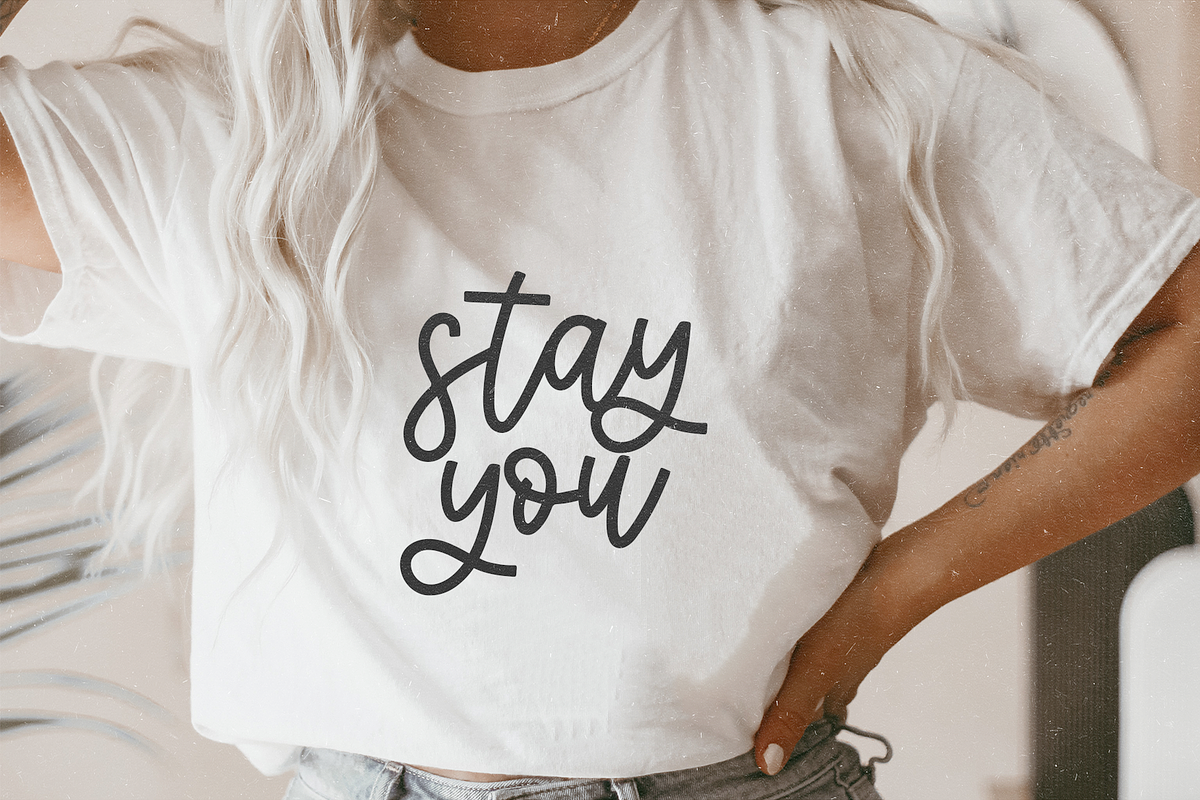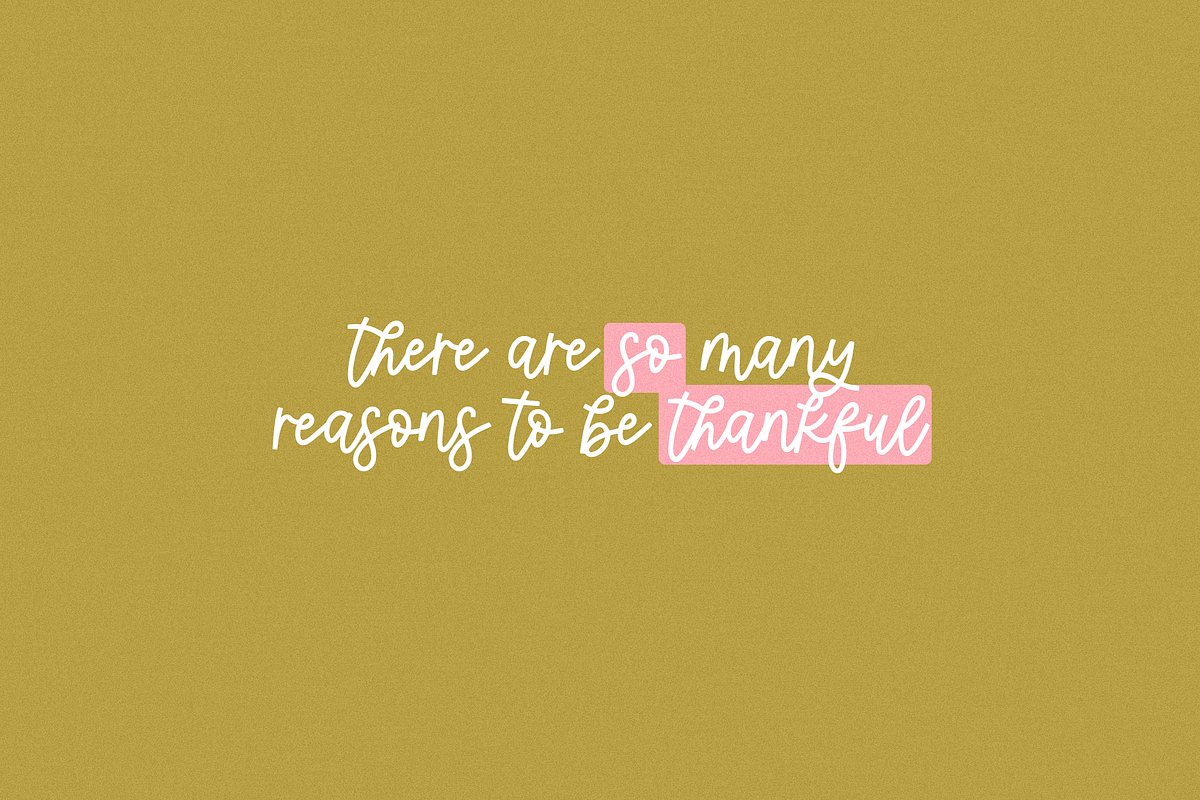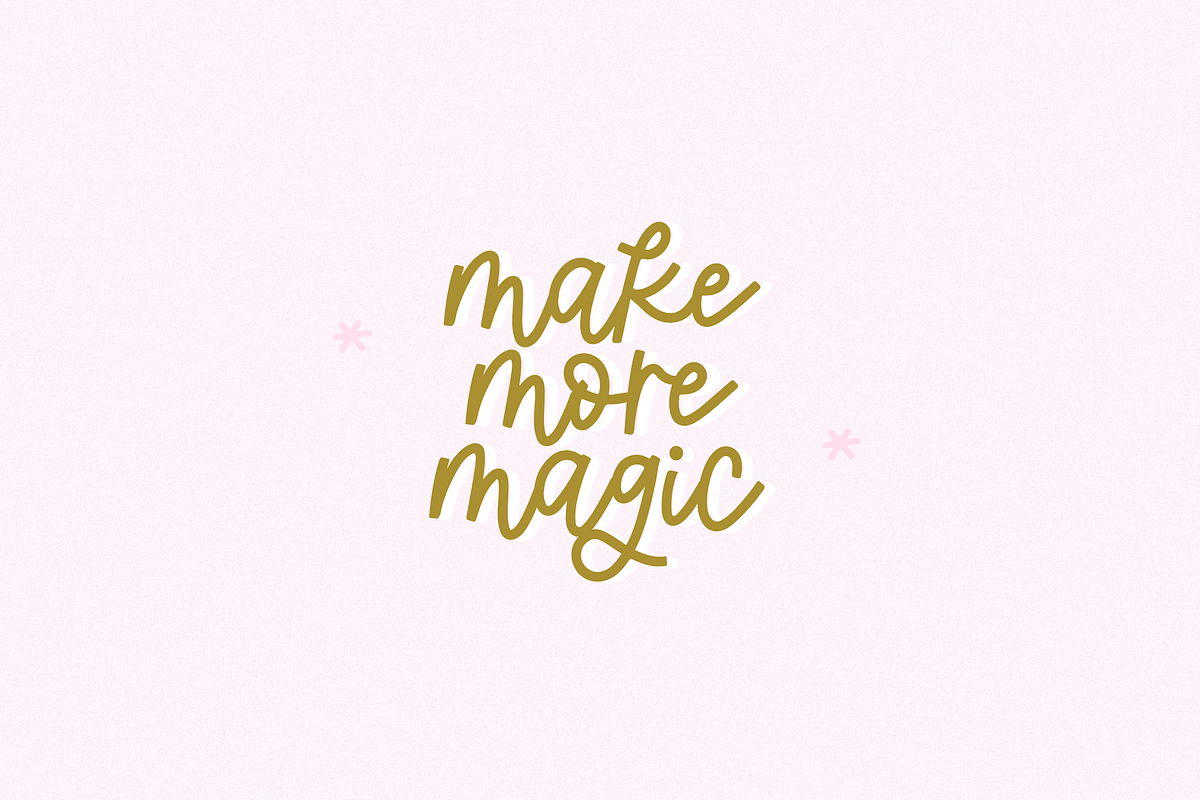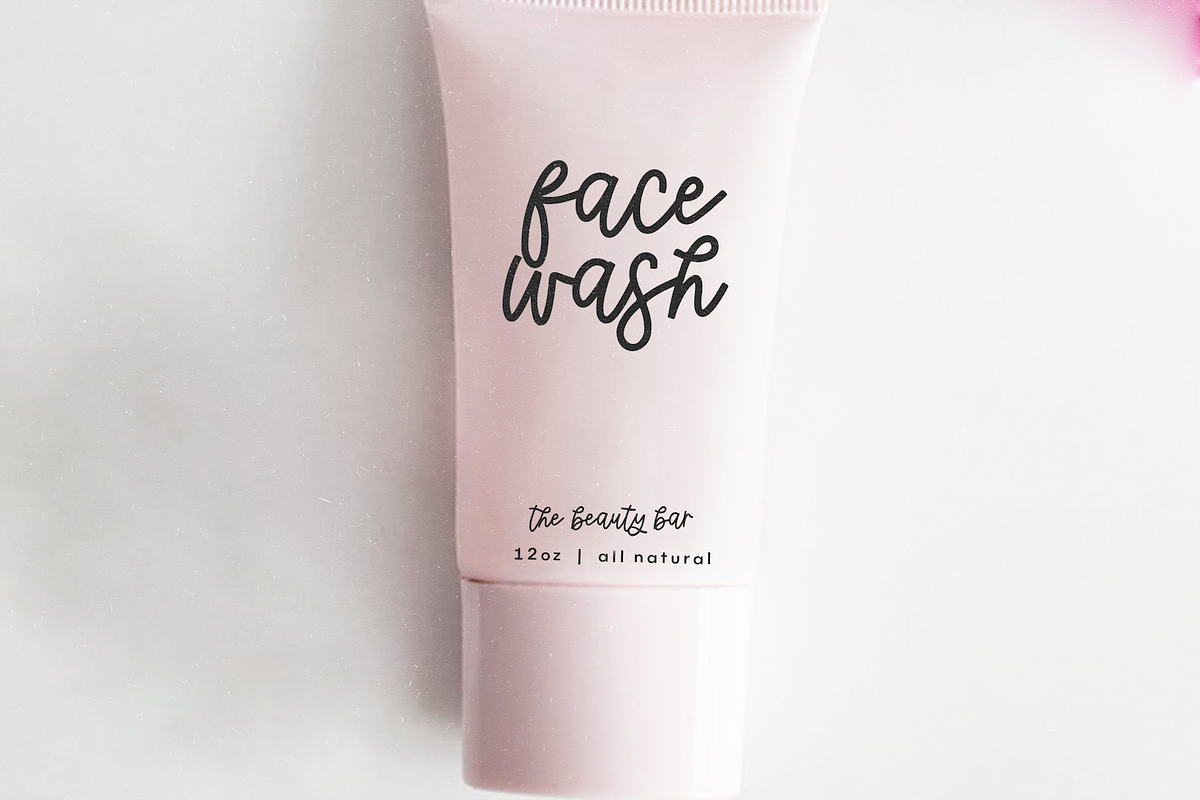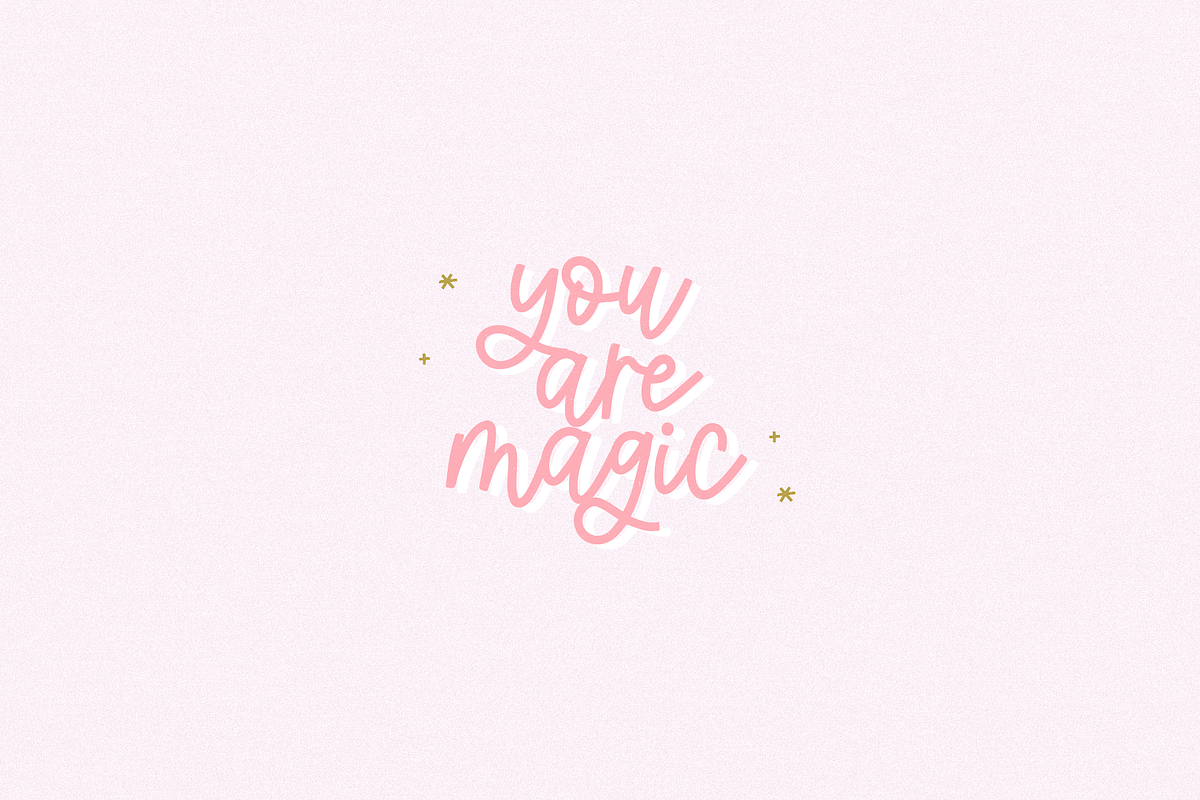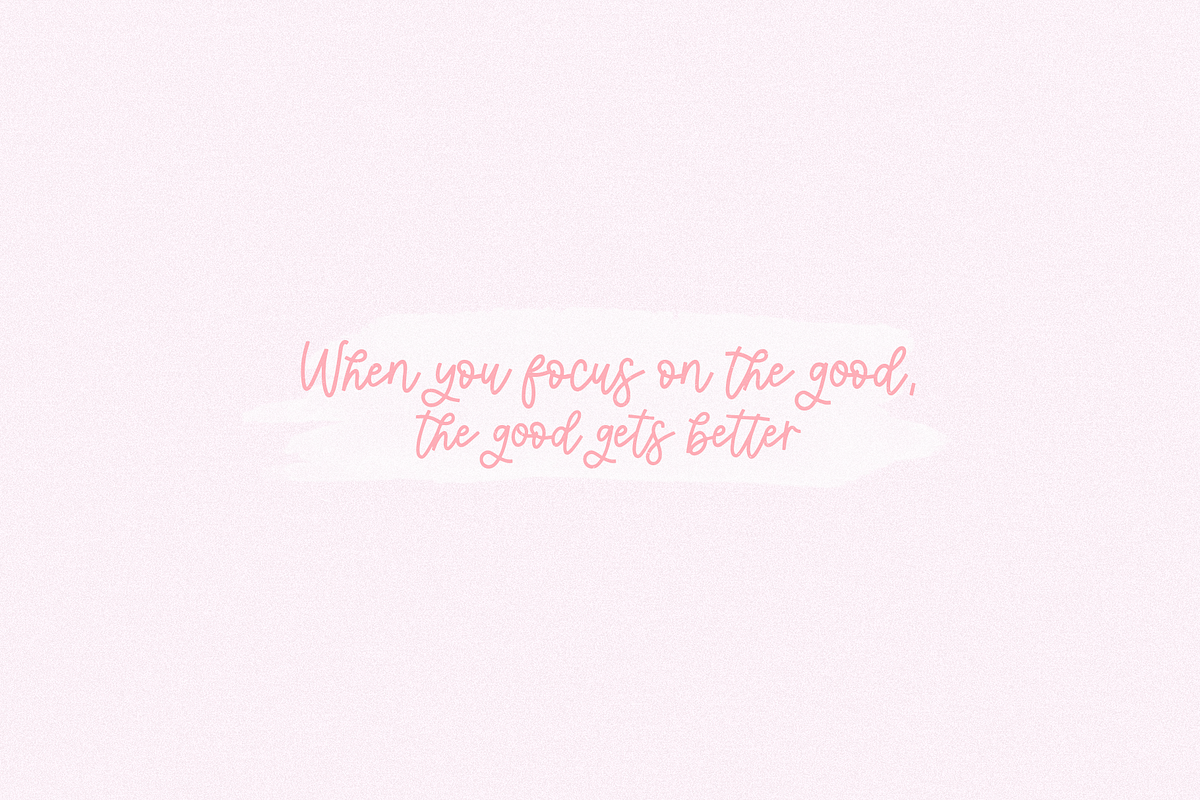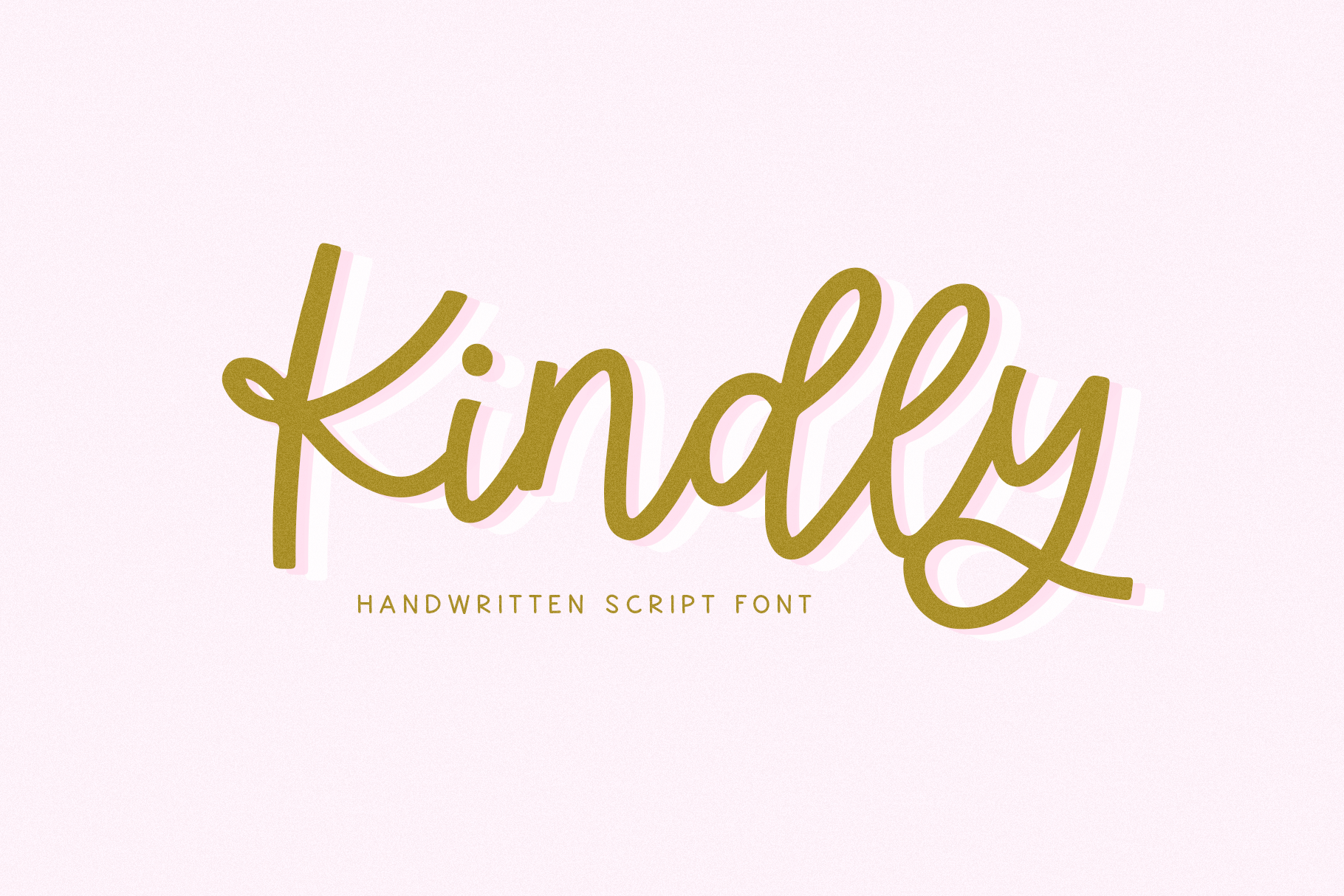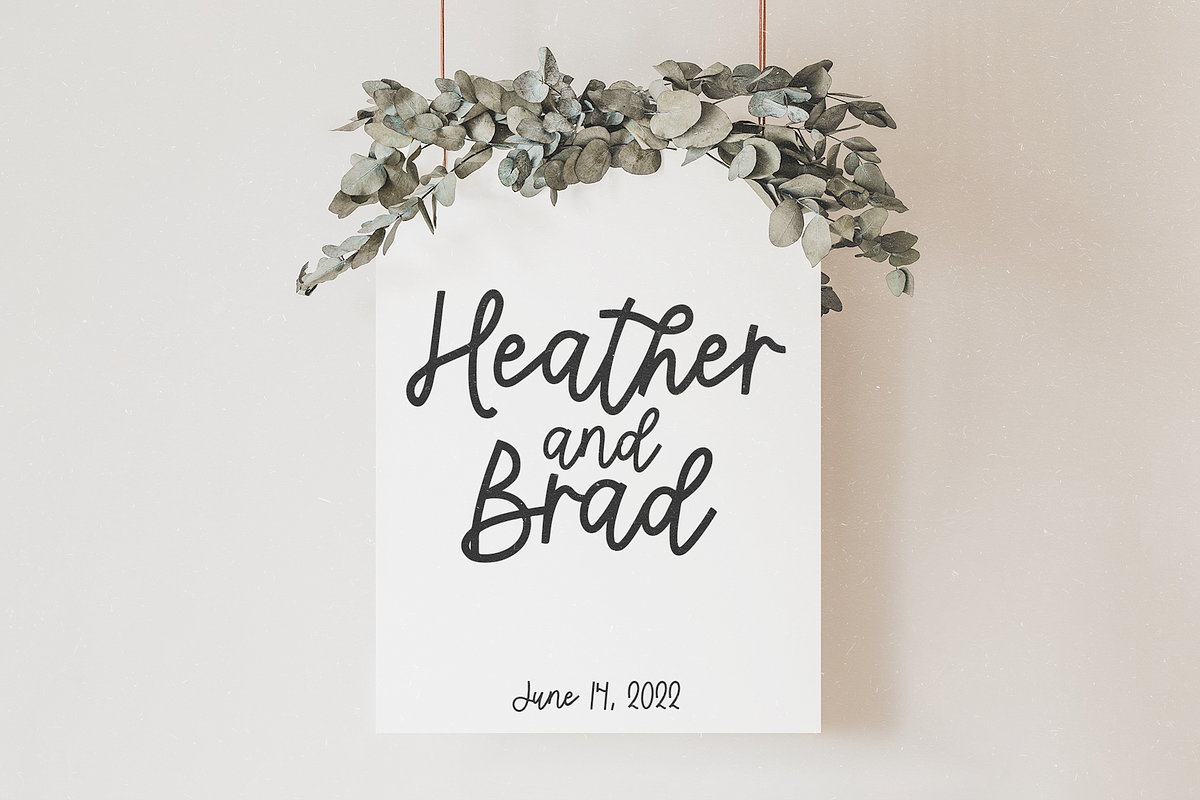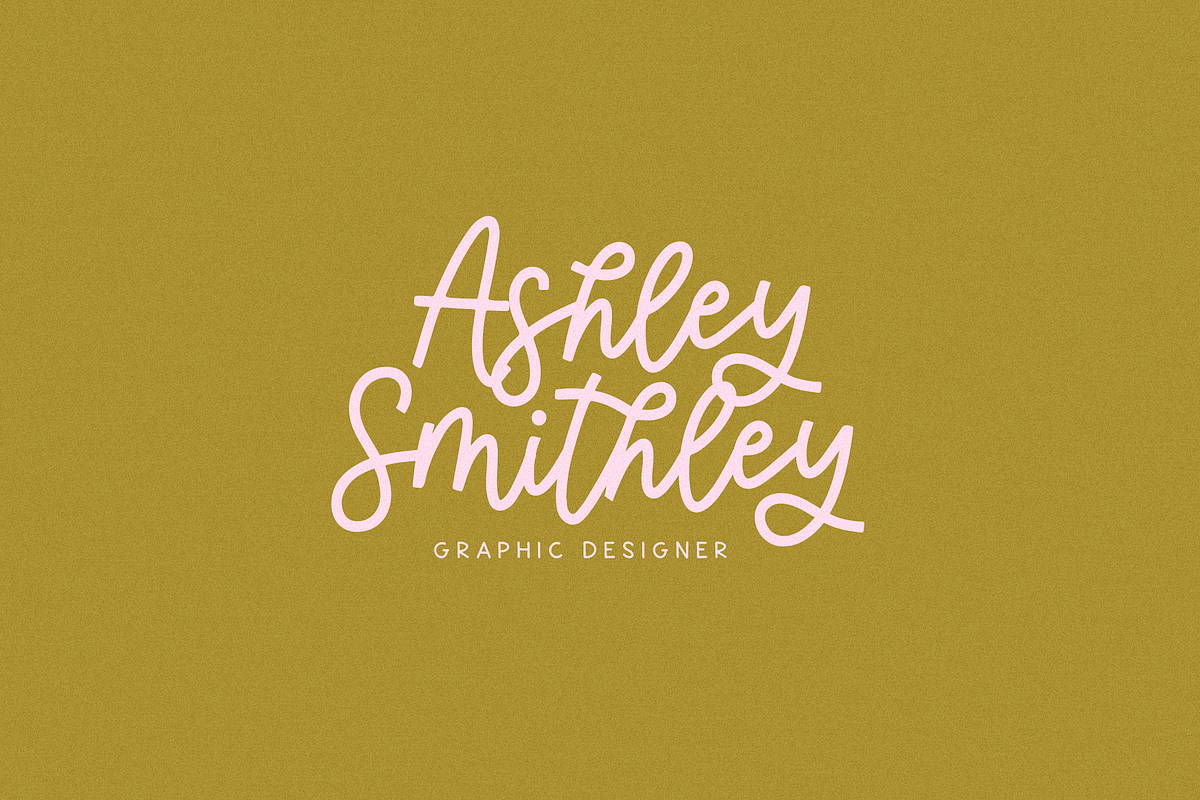
Kindly | Handwritten Script Font
Kindly is a monoline script font.
This font is perfect for branding, crafting, logos, procreate, signs, wedding decor, shirts, stickers and more!